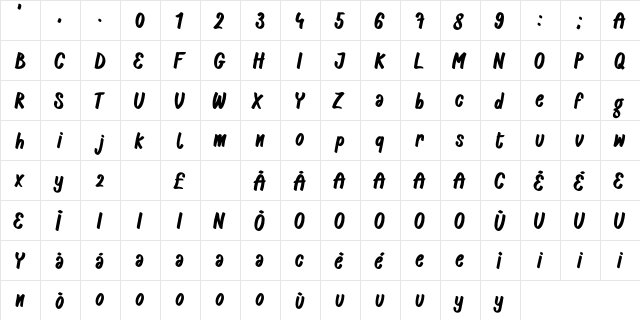
Casper Marker DaFont Regular
Design Context for Casper Marker DaFont Typeface
Casper Marker DaFont is a composed and adaptable typeface that performs quietly and consistently across a wide range of design contexts.